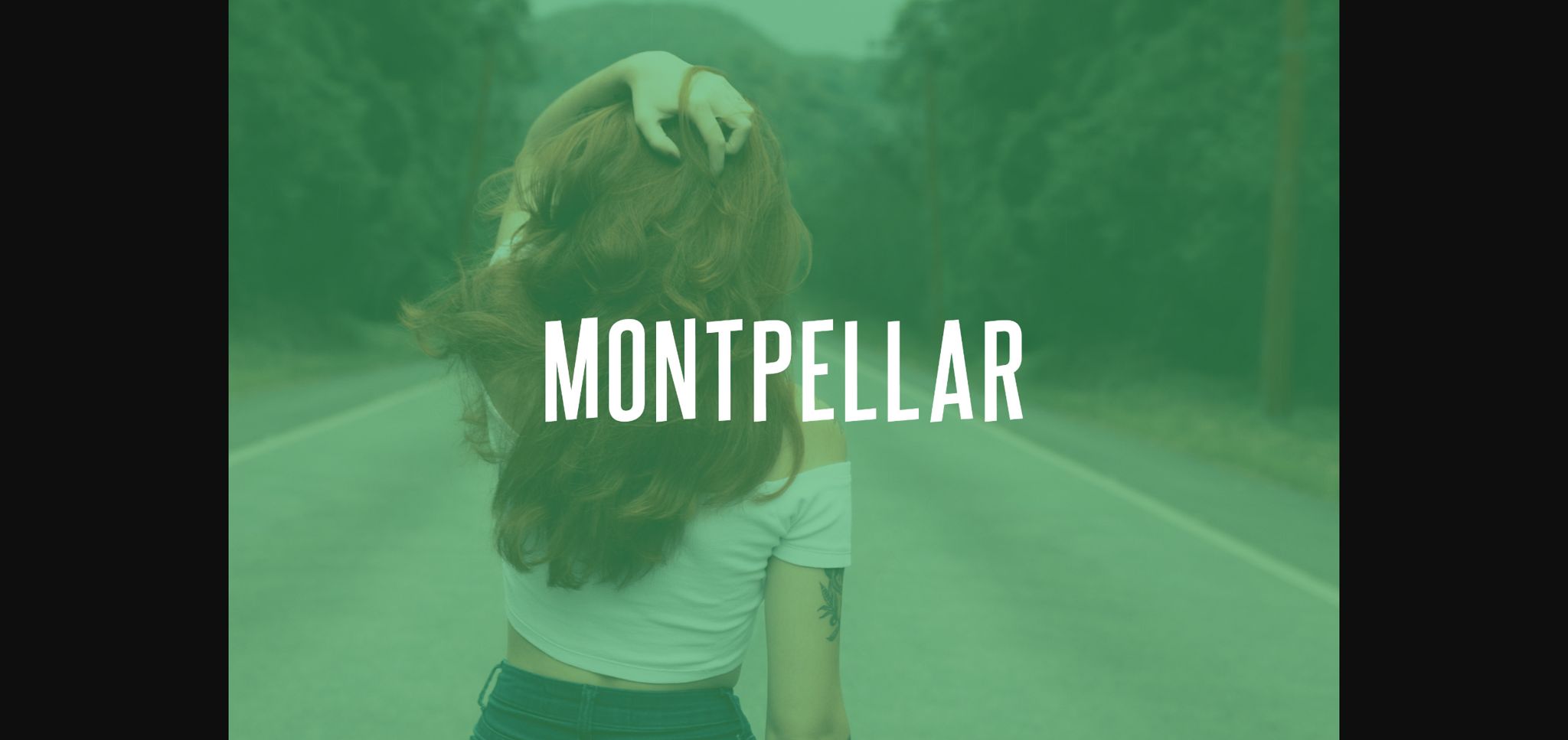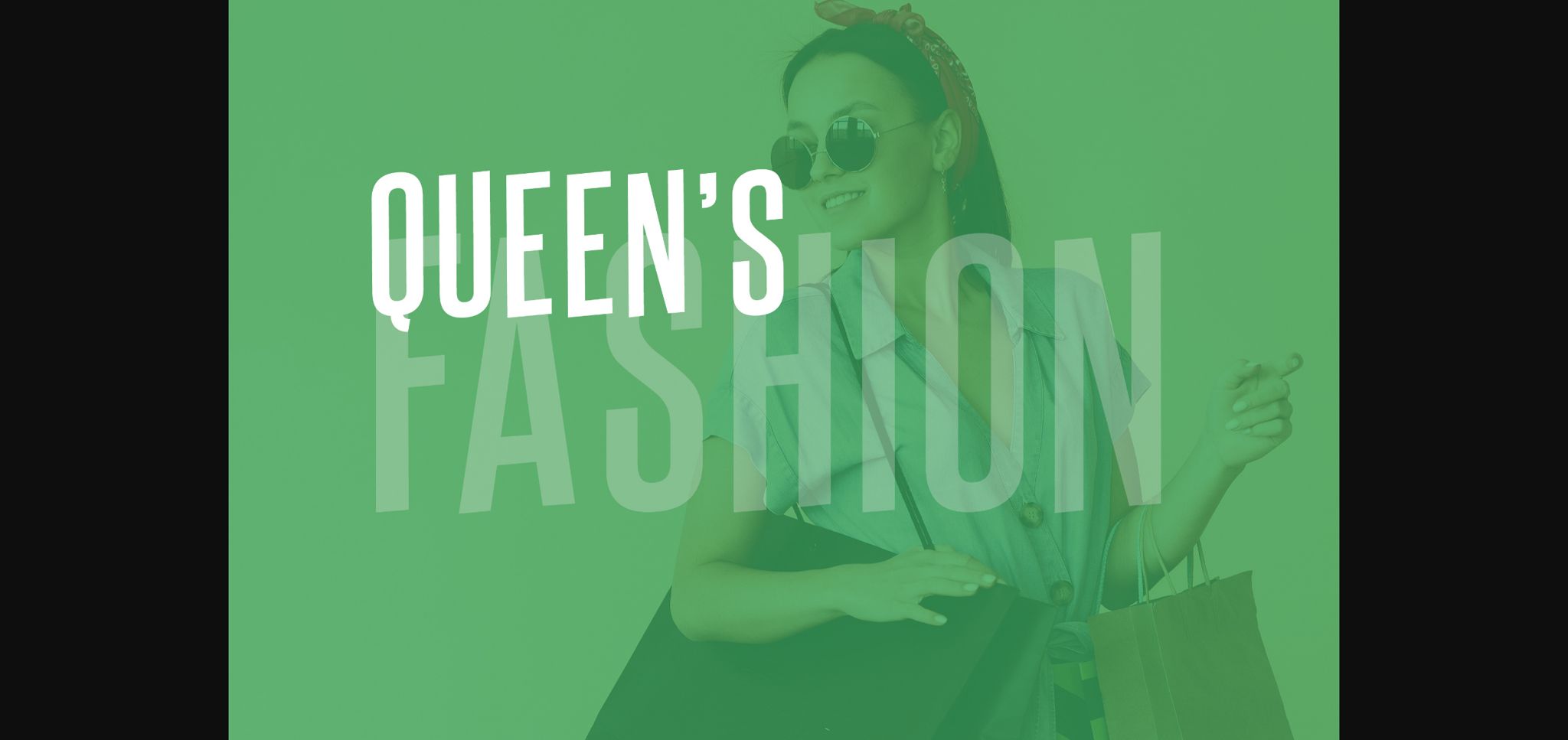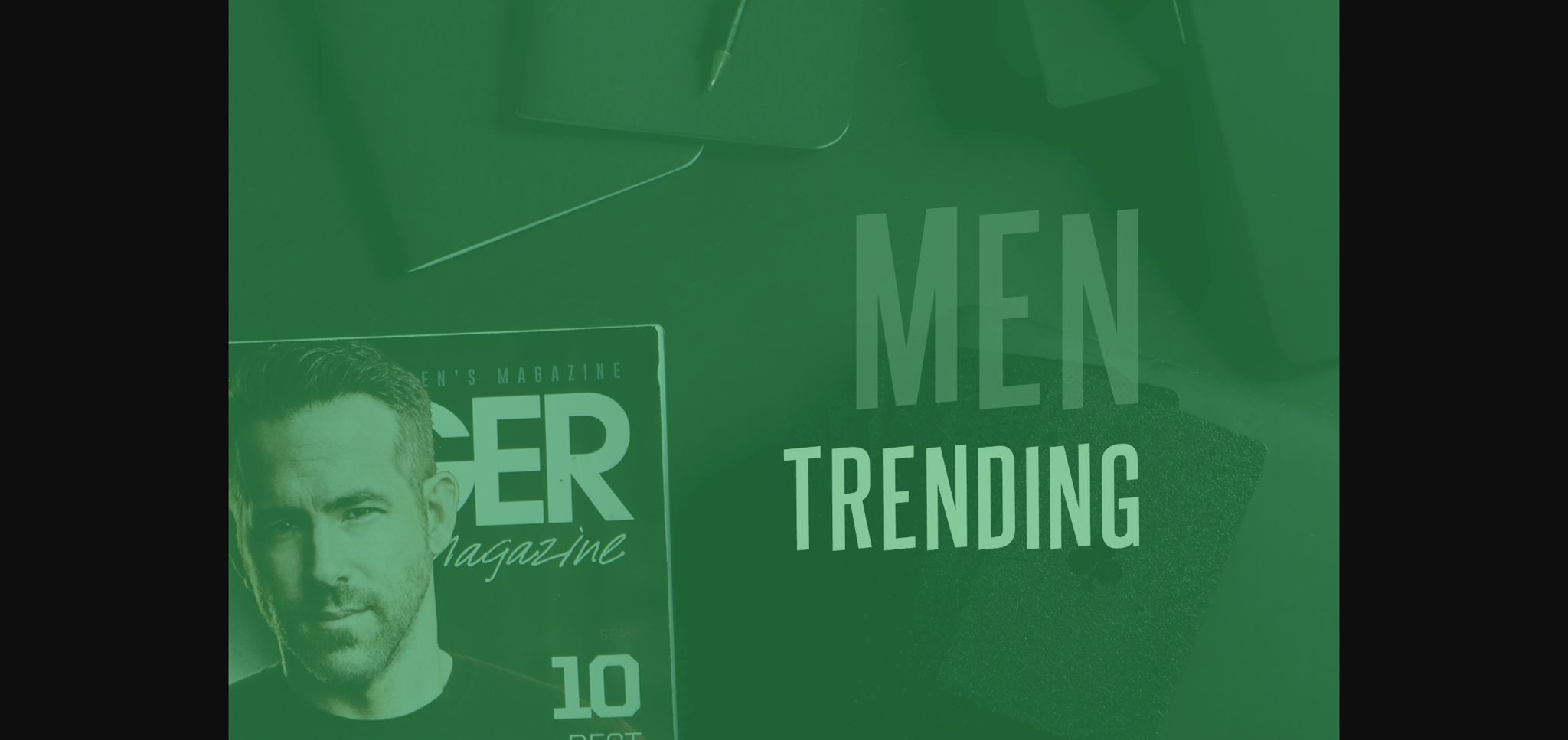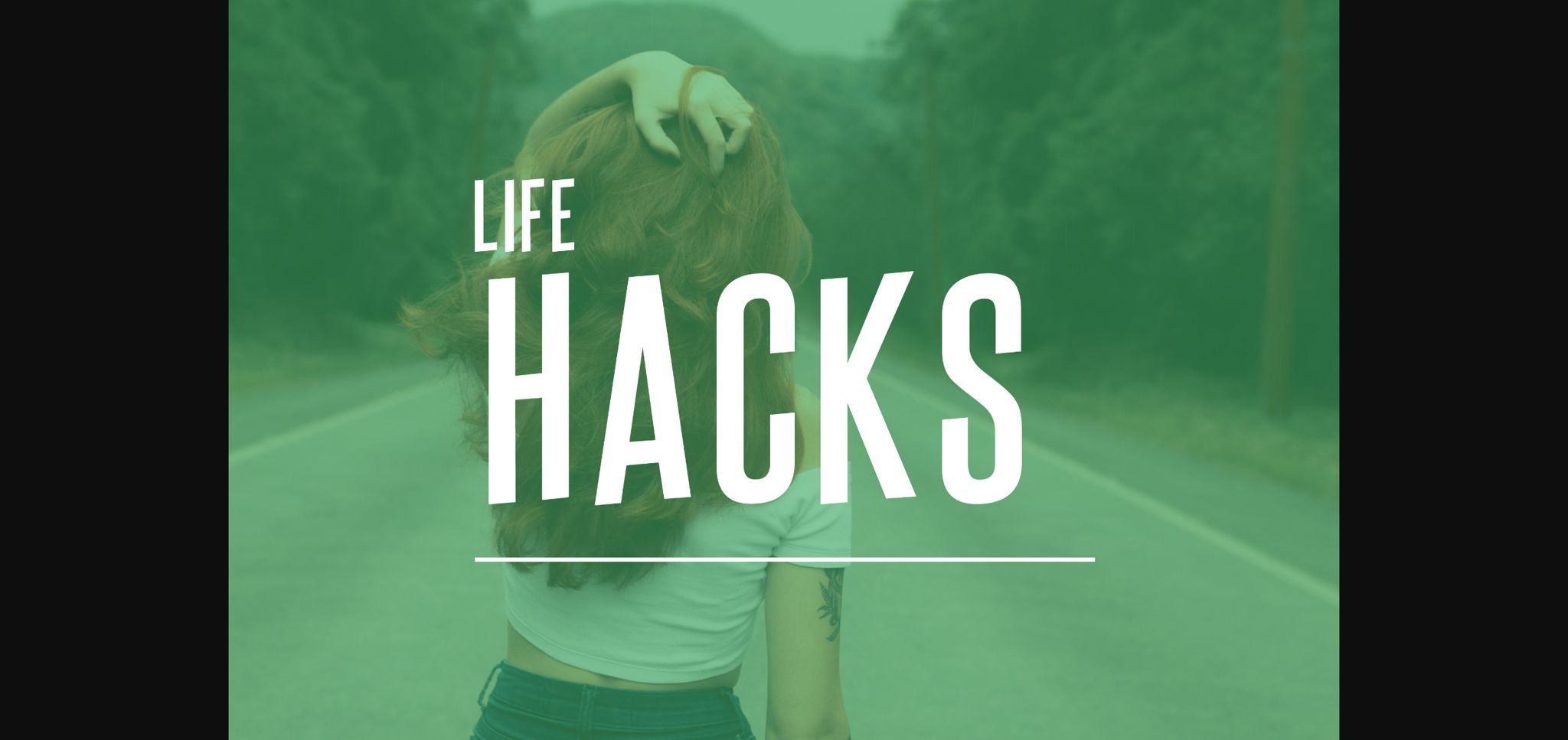
Montpeller Font
About Montpeller Font
Montpeller is a neat, bold and simple sans serif font. It can easily be matched to an incredibly large set of projects, so add it to your creative ideas and notice how it makes them stand out!